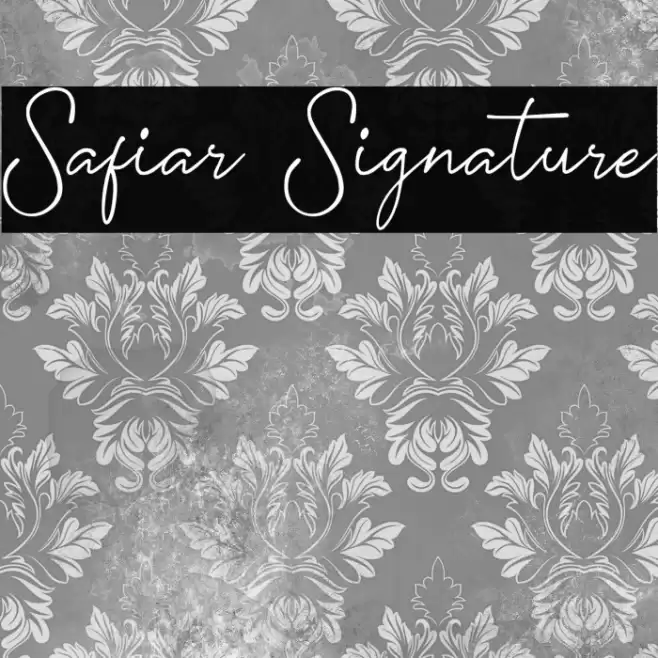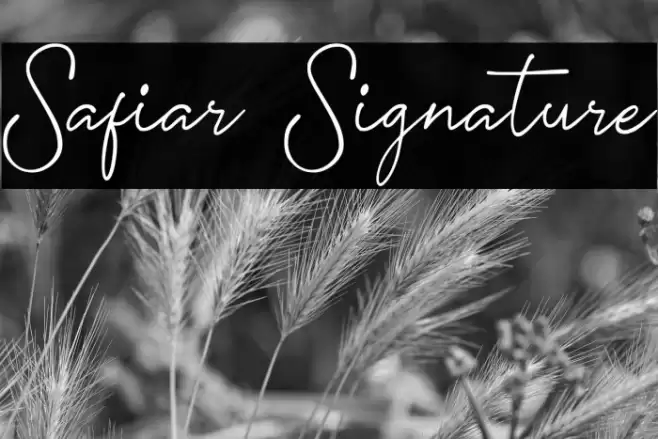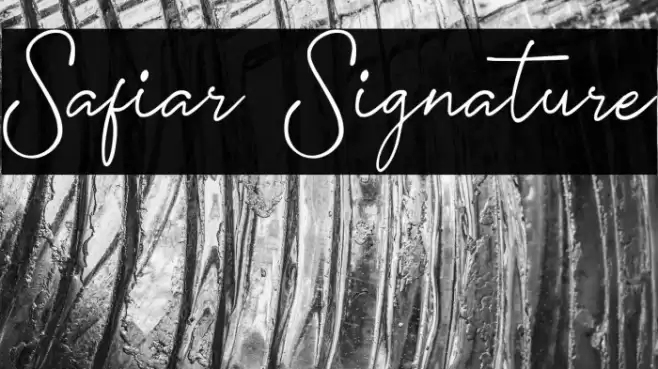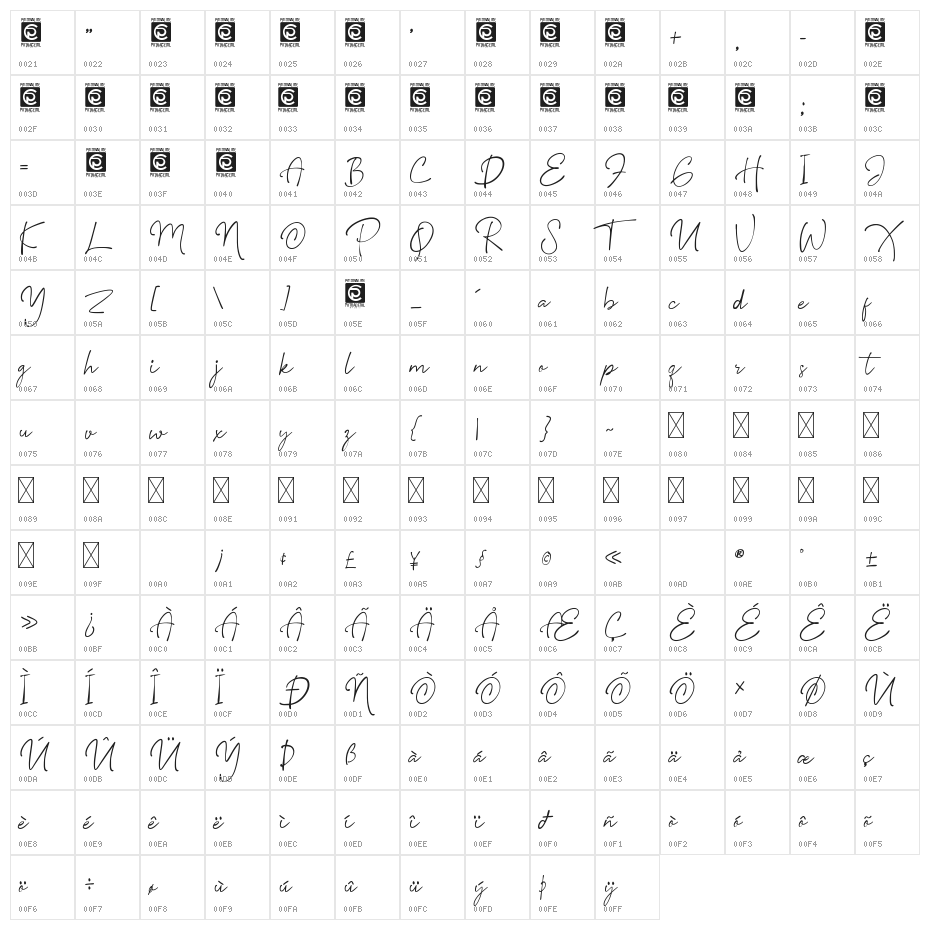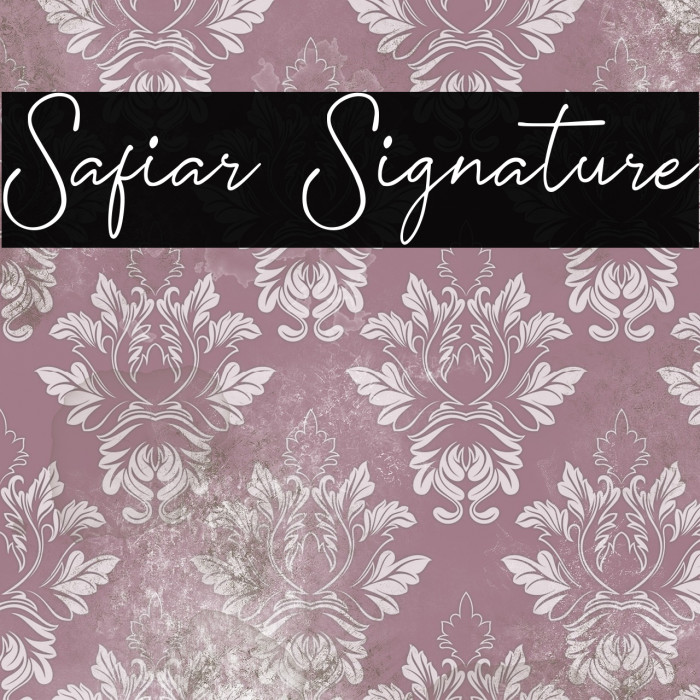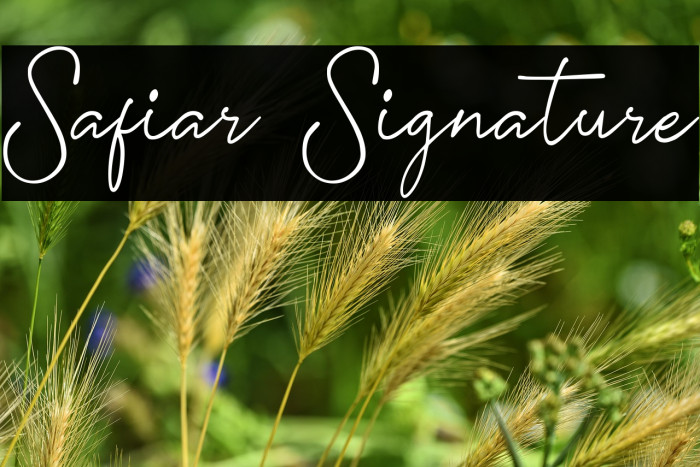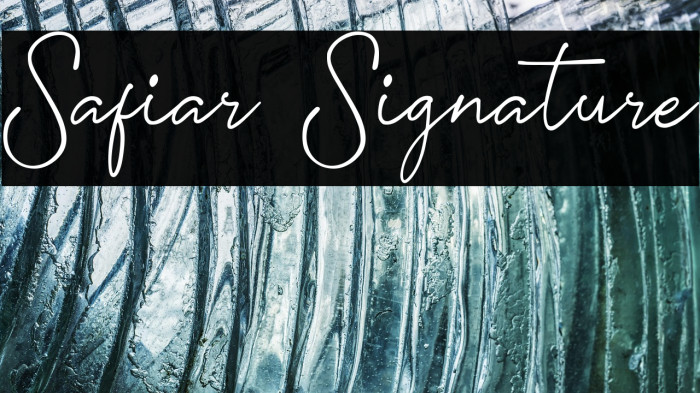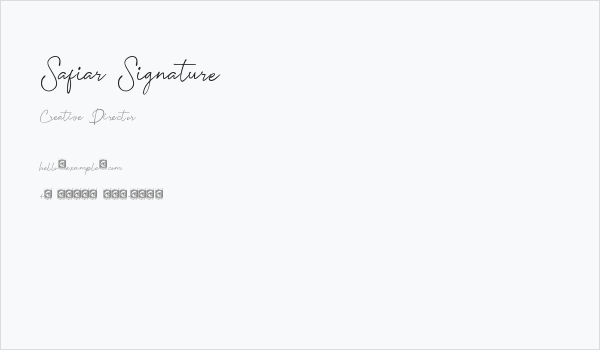
Safiar Signature Font
Safiar Signature Description
This font exudes a modern and elegant script style, characterized by its flowing, cursive letterforms that mimic natural handwriting. The uppercase letters are tall and slightly narrow, with graceful loops and curves, while the lowercase letters maintain a consistent slant, enhancing the handwritten feel. The strokes are smooth and fluid, with a medium contrast between thick and thin lines, adding to its legibility and aesthetic appeal. The font's overall appearance is sophisticated and stylish, making it suitable for projects that require a personal touch or a sense of elegance.
A modern, elegant script font with flowing, cursive letterforms and medium contrast from Regular fonts.
- Proposed Projects: Ideal for wedding invitations, branding, personal stationery, and elegant logo designs.
- Use Case: Logos, Invitations, Branding